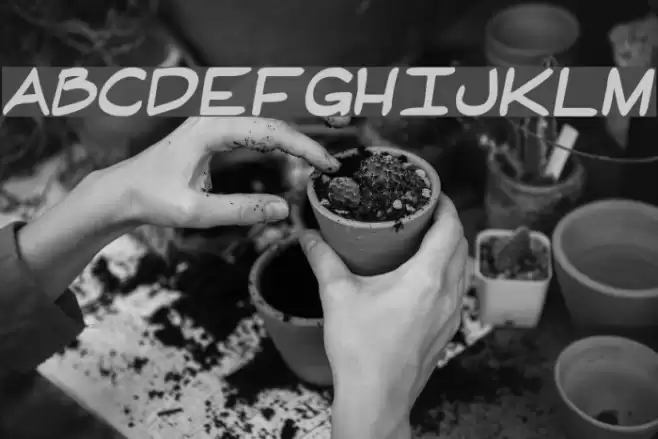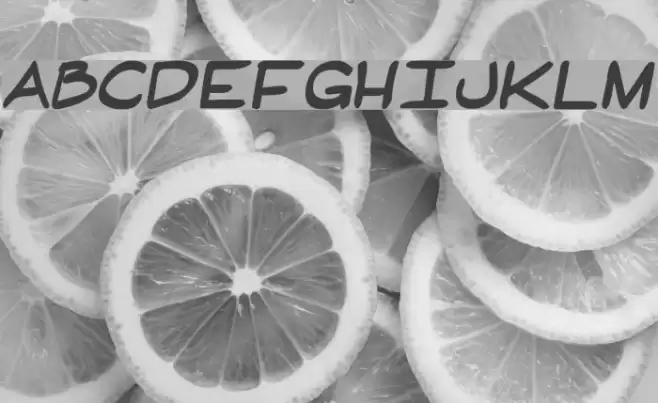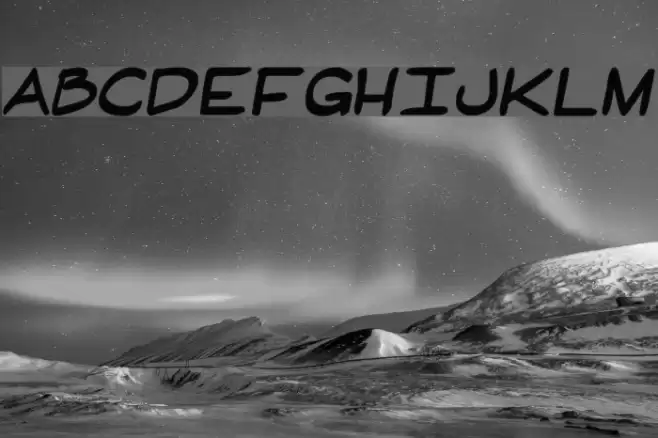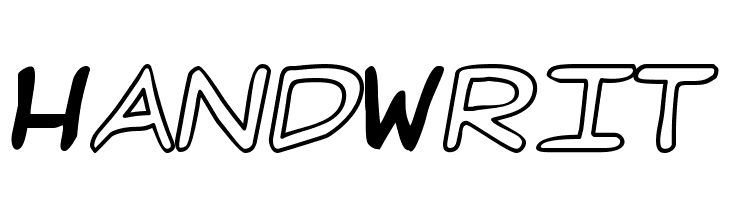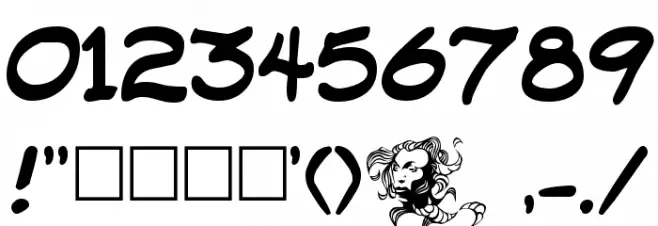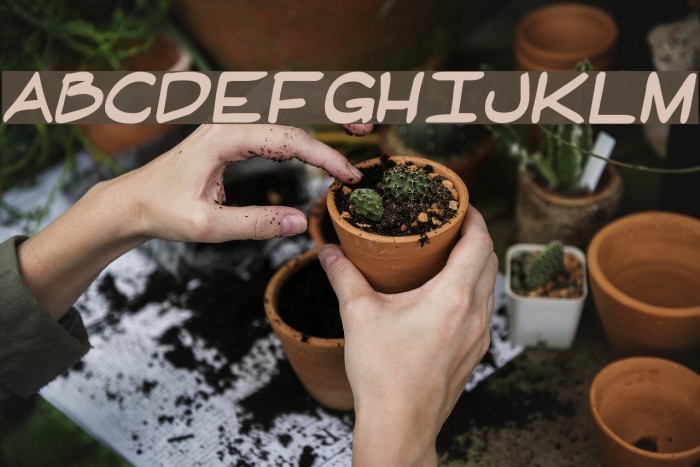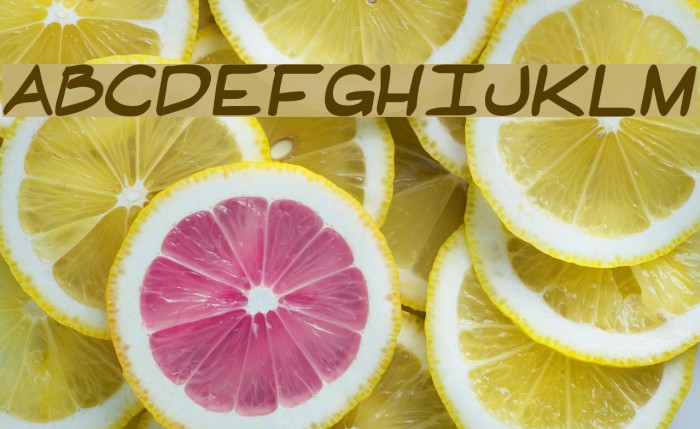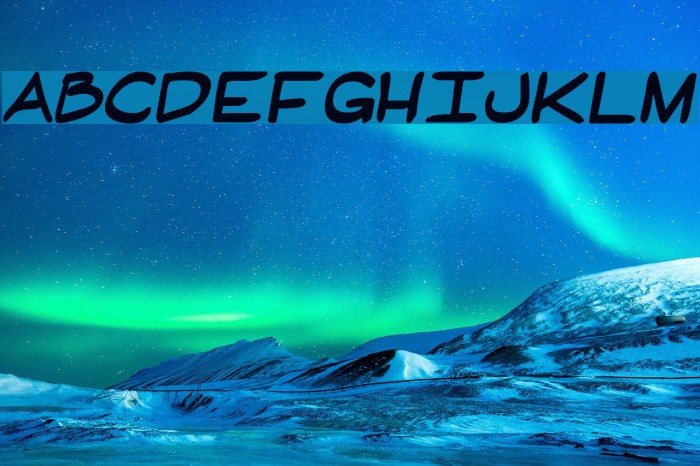
HandWrit Font
HandWrit Description
This font features a playful and dynamic handwritten style, characterized by its bold and slightly slanted letterforms. The uppercase letters are consistent in height, with a smooth flow that mimics natural handwriting. The lowercase letters maintain a similar style, offering a cohesive look. The numerals are bold and rounded, complementing the overall aesthetic. Special characters are included, enhancing its versatility. The font's informal and friendly appearance makes it suitable for creative and casual projects.
A bold, playful handwritten font with a dynamic and informal style from Uncategorized fonts.
- Proposed Projects: Ideal for greeting cards, invitations, children's books, and playful branding.
- Overall Style: Playful
- Use Case: Headlines, Logos, Informal Text